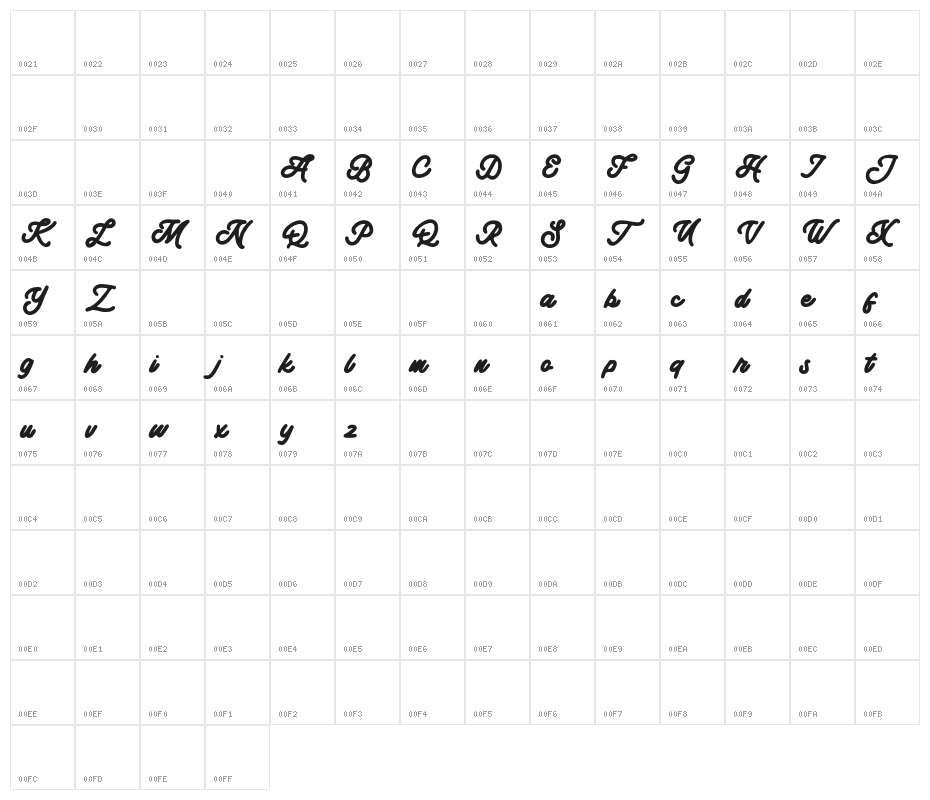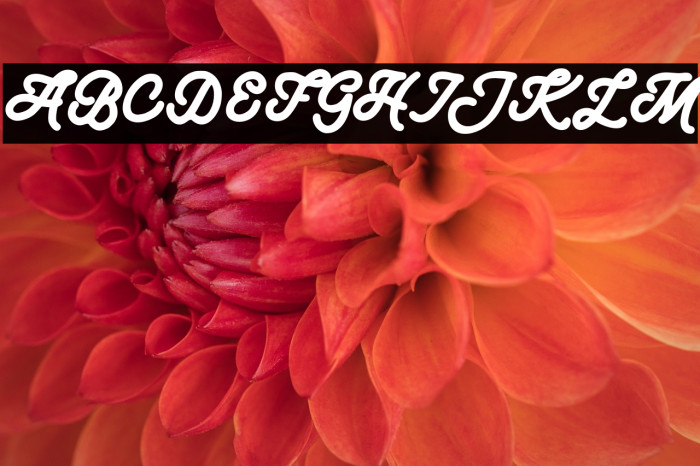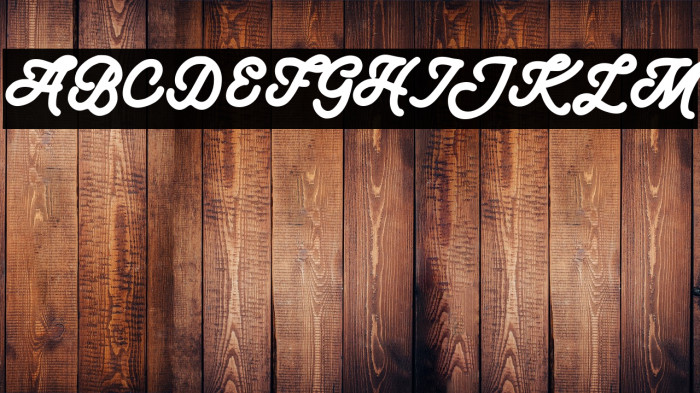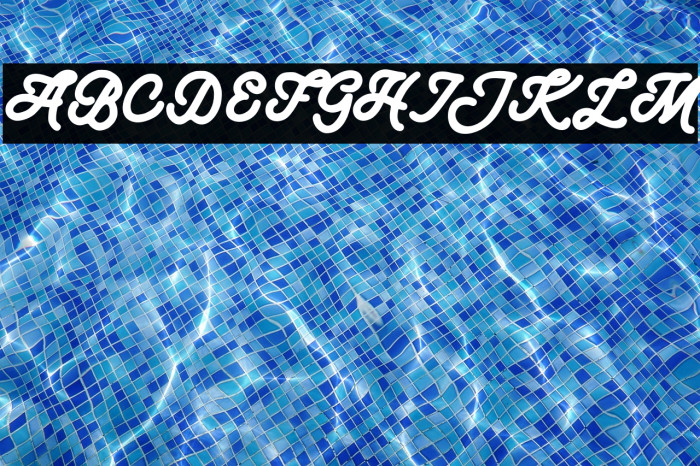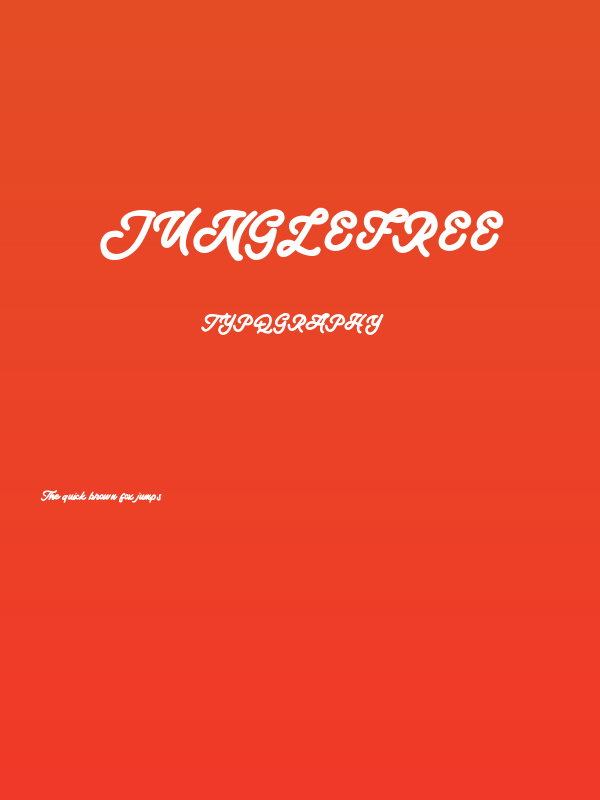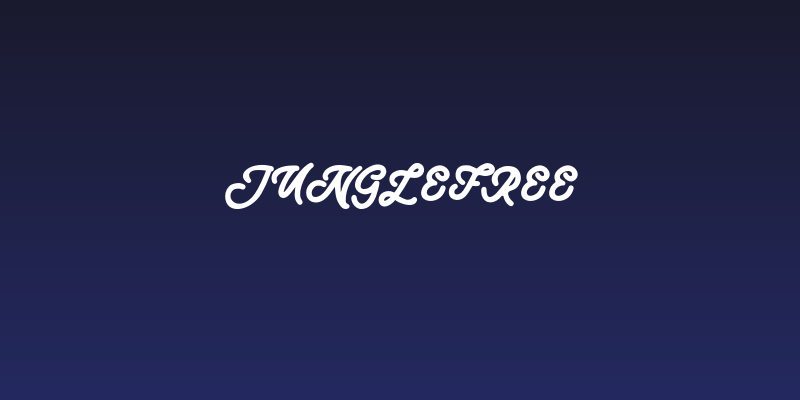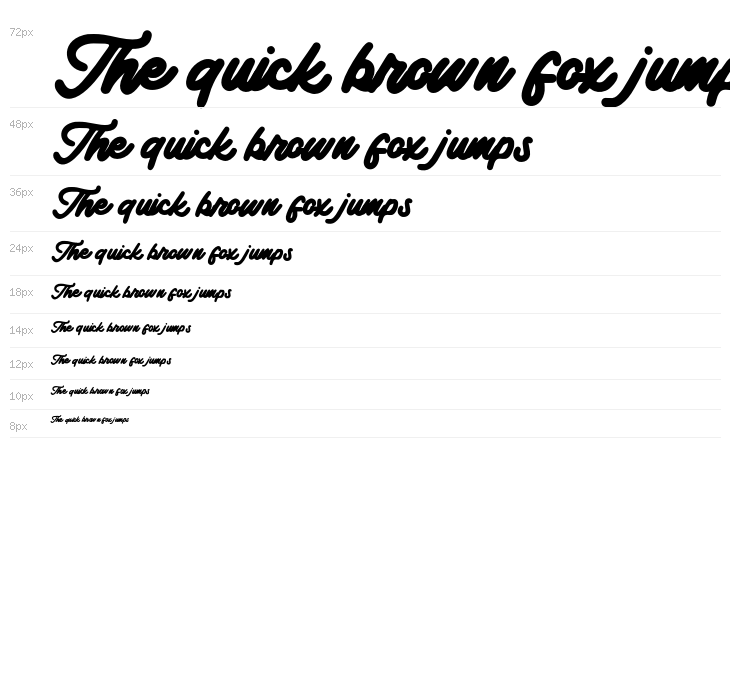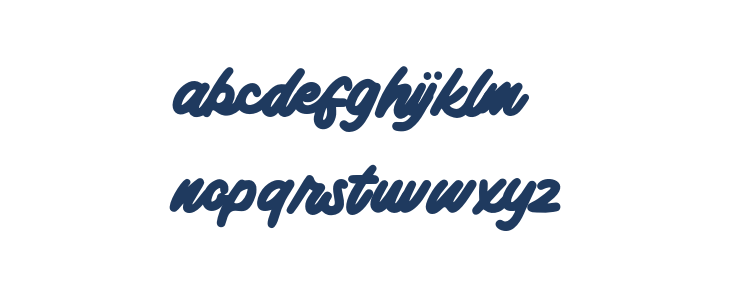
JungleFREE Font
JungleFREE Description
This font features a bold and flowing script style, characterized by its smooth, connected letters that mimic the fluidity of handwriting. The uppercase letters are elegantly curved with a consistent stroke width, while the lowercase letters maintain a harmonious balance, offering a cohesive look. The font's design is both playful and sophisticated, making it suitable for a variety of creative applications. Its boldness ensures high readability, even at smaller sizes, while the cursive style adds a touch of elegance and personality.